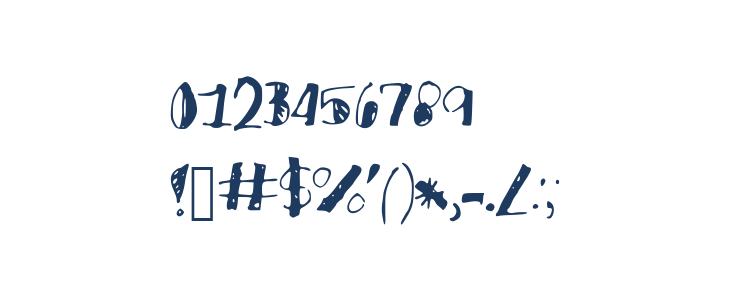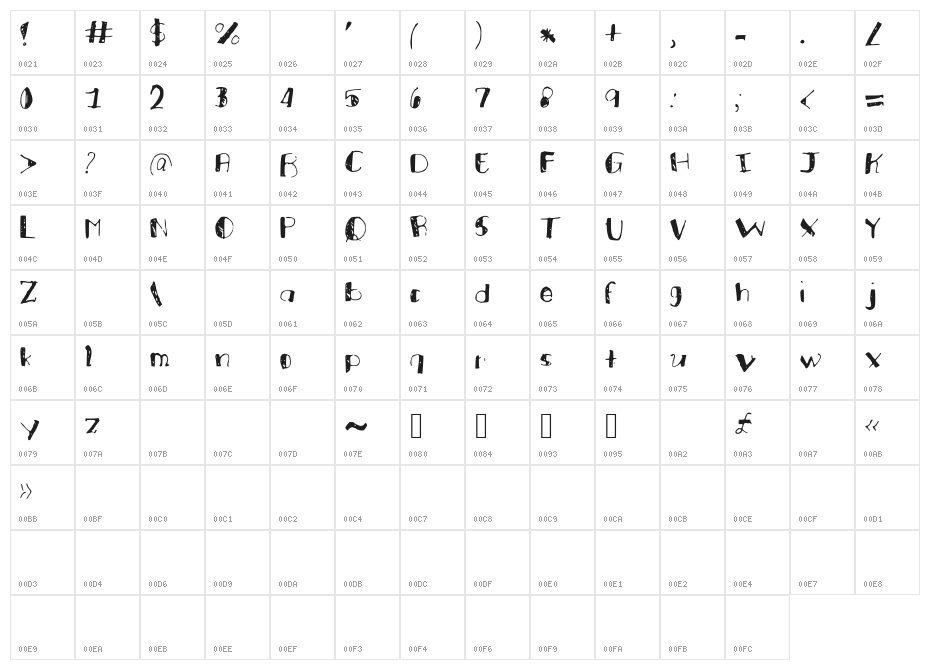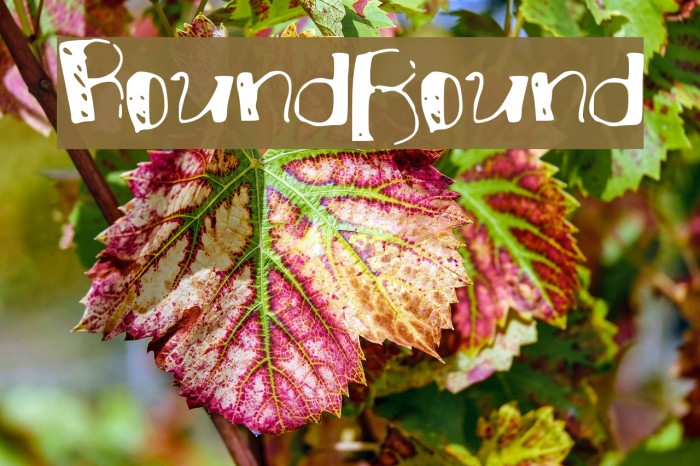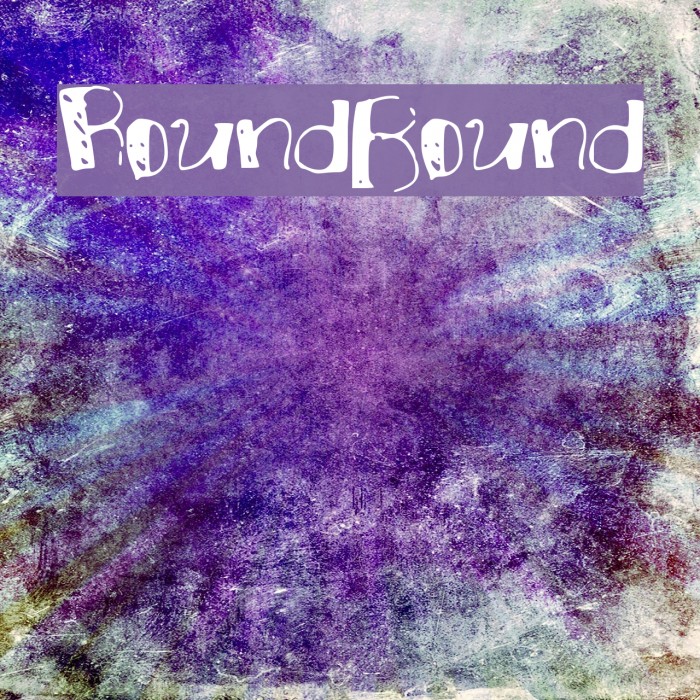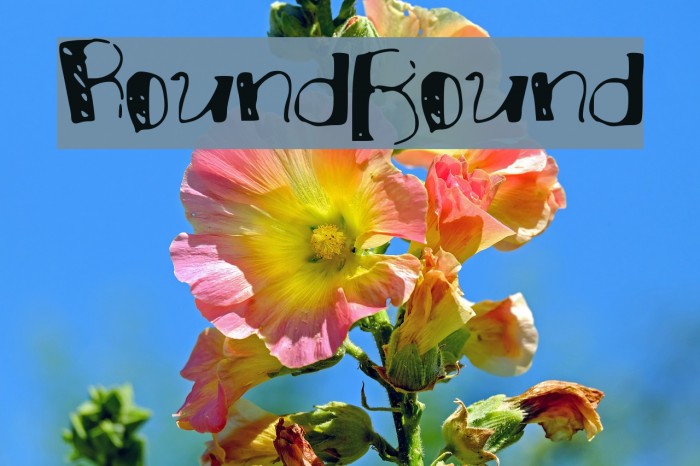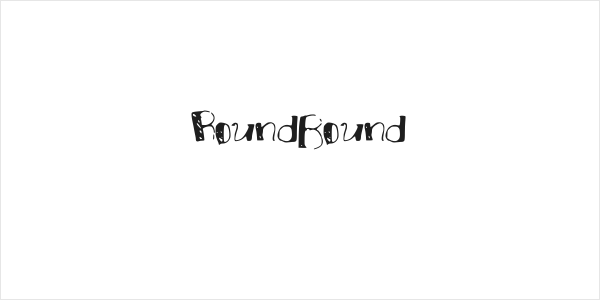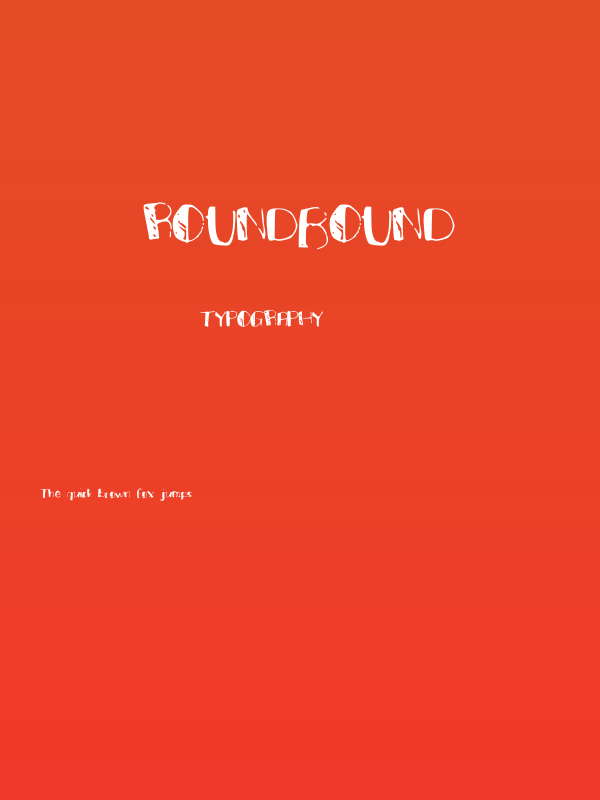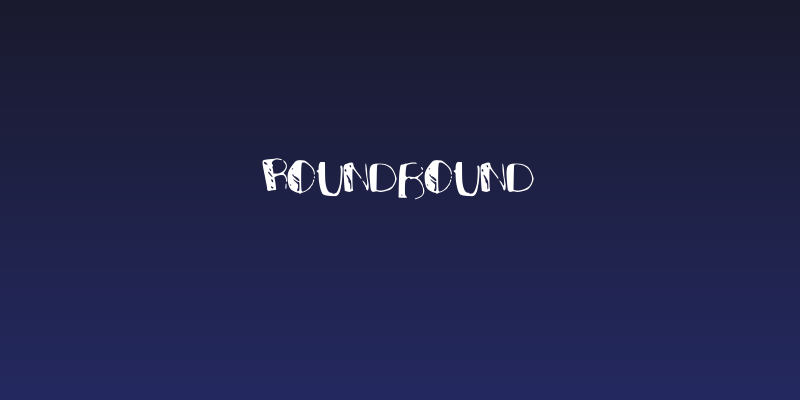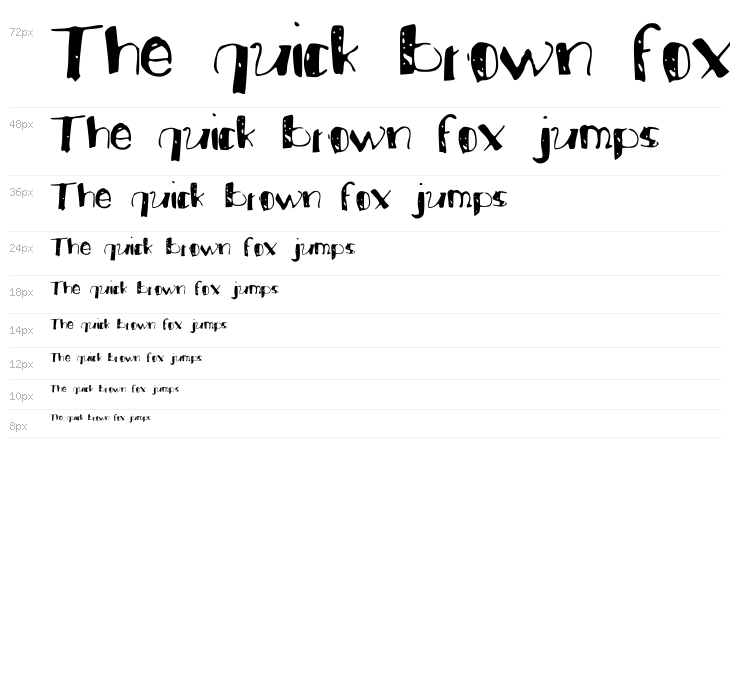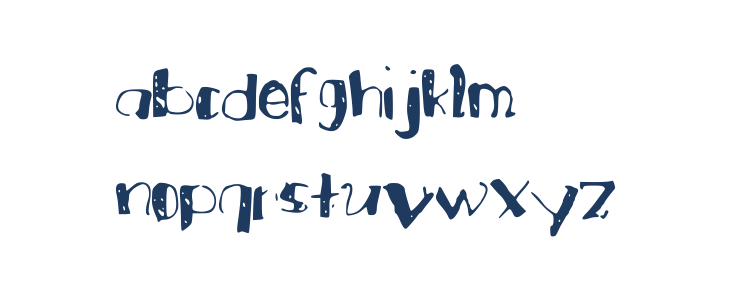
RoundBound Font
RoundBound Description
This font features a playful and artistic style with a hand-drawn appearance. The characters are irregular and have a whimsical quality, with varying stroke thickness and unique embellishments. The uppercase and lowercase letters maintain a consistent style, while the numbers and special characters add to the font's quirky charm. The overall design is bold and expressive, making it suitable for creative projects that require a distinctive and eye-catching typeface.
| Overall Style | Artistic, Playful |
| Proposed Projects | Ideal for children's books, creative posters, artistic branding, and playful invitations. |